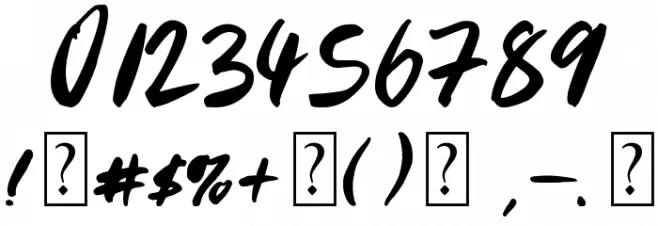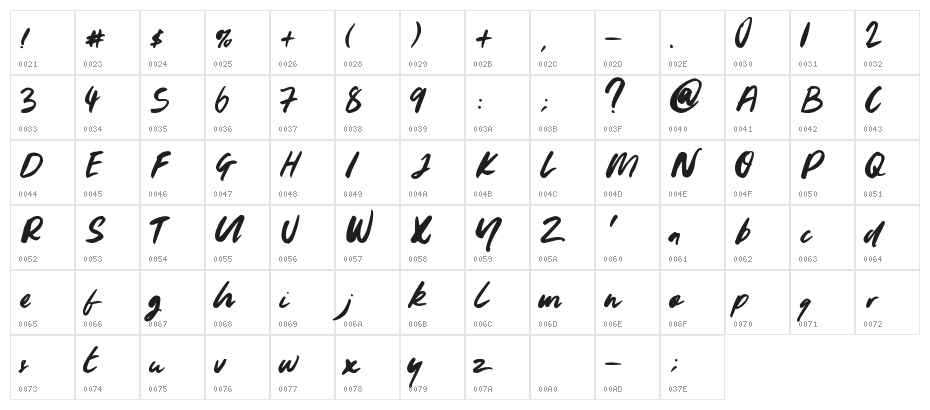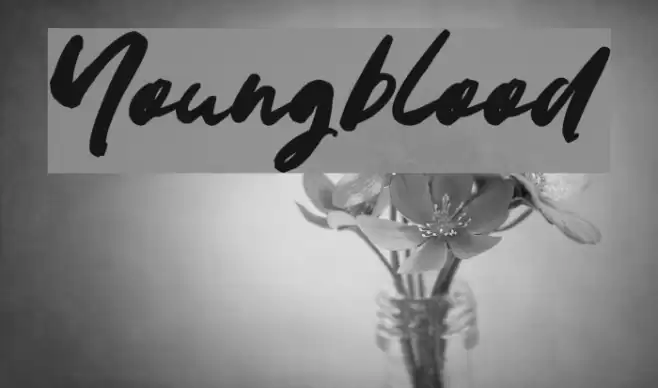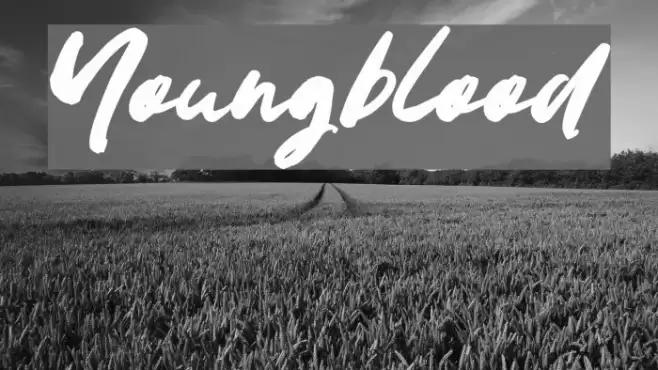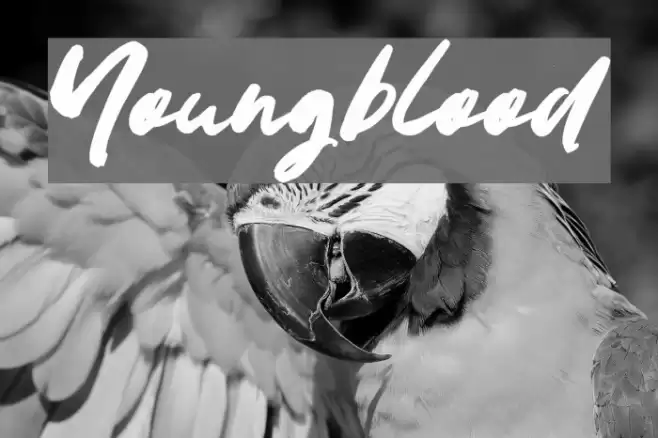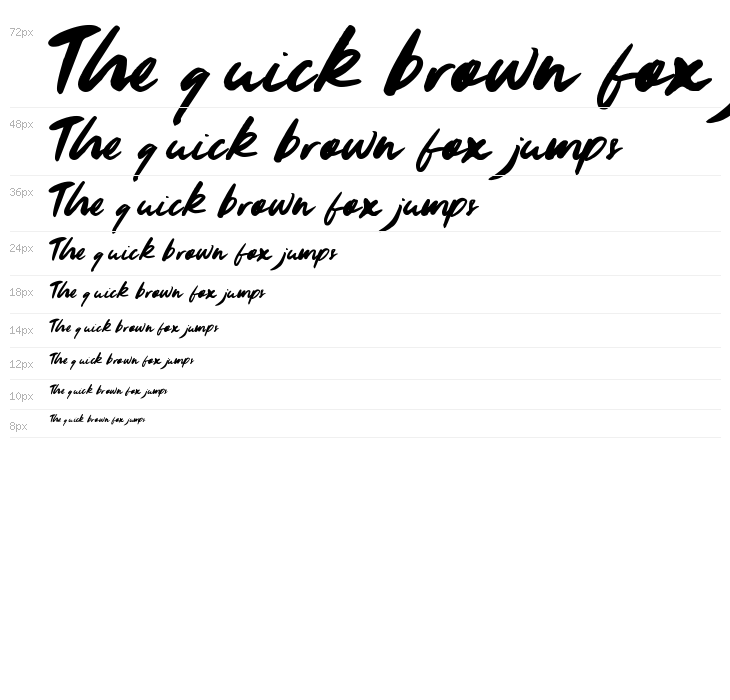
Youngblood Font
Youngblood Description
This font exudes a dynamic and energetic vibe, characterized by its bold, brush-like strokes that convey a sense of movement and fluidity. The letters are slightly slanted, giving it a casual yet assertive appearance. The uppercase and lowercase letters maintain a consistent style, with rounded edges and varying stroke widths that add a touch of spontaneity. The numerals and special characters follow the same expressive style, ensuring a cohesive look across all text elements. This font is ideal for projects that require a personal touch, such as invitations, posters, or branding materials that aim to capture attention with a lively and informal tone.
Proposed ProjectsIdeal for invitations, posters, branding materials, and any project needing a lively, personal touch.